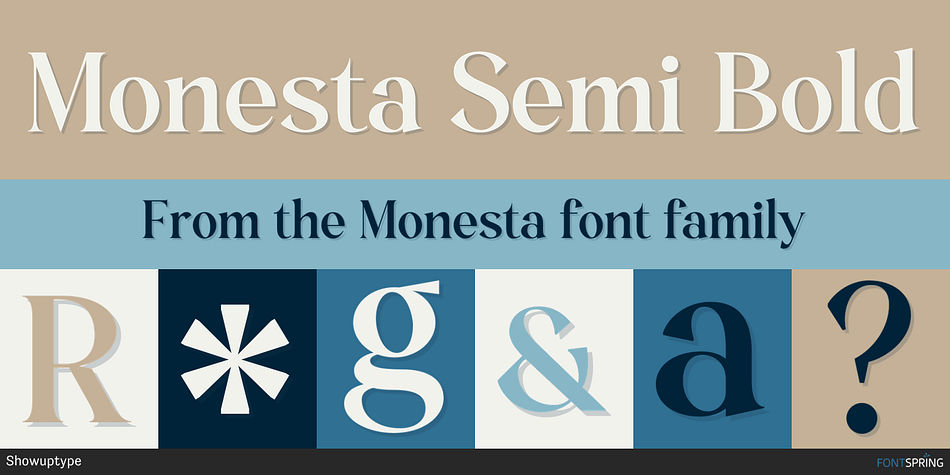
Monesta Semi Bold
Designed by Aulia Rahman, Monesta is a serif font family. This typeface has eleven styles and was published by Showuptype.
Monesta® is a confident smooth serif font family. Designed by Aulia Rahman, Monesta® it creates a sense of softness and expressiveness. the concept into a usability-focused direction, to work as a bold tool and beautiful communicator.
Monesta variable allows design across 9 weights, major Latin-based languages, and Cyrillic. Monesta® brings energy and makes it suitable for modern design.